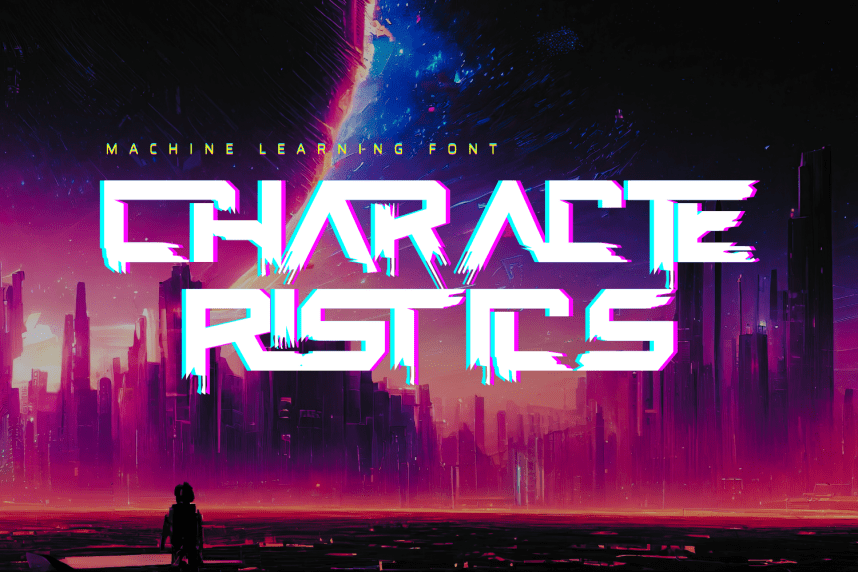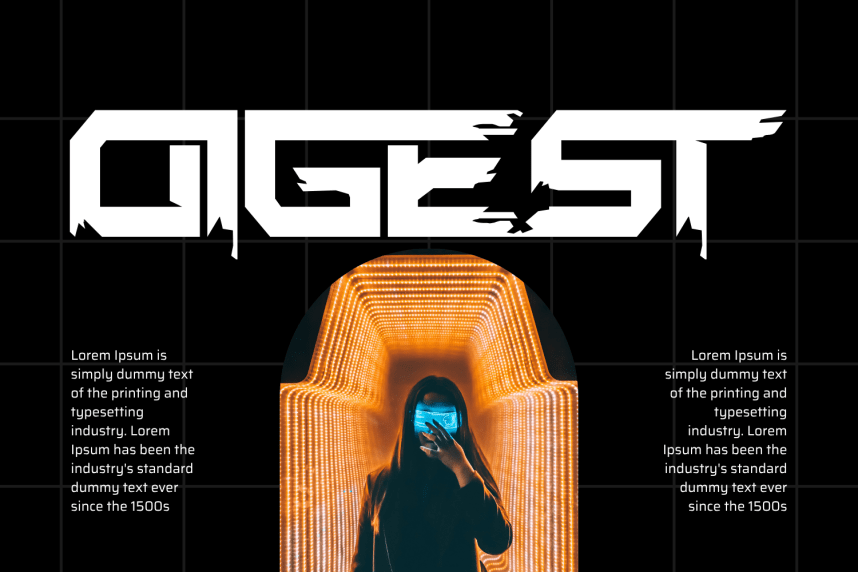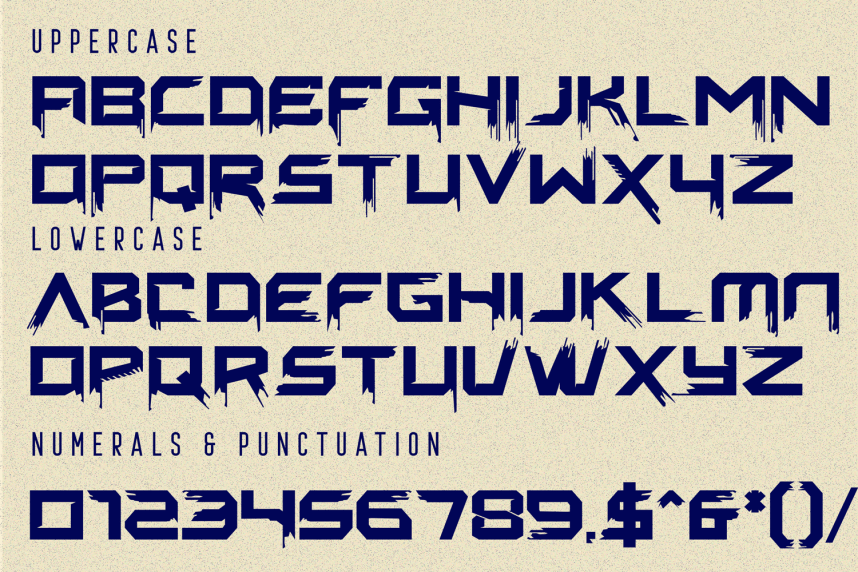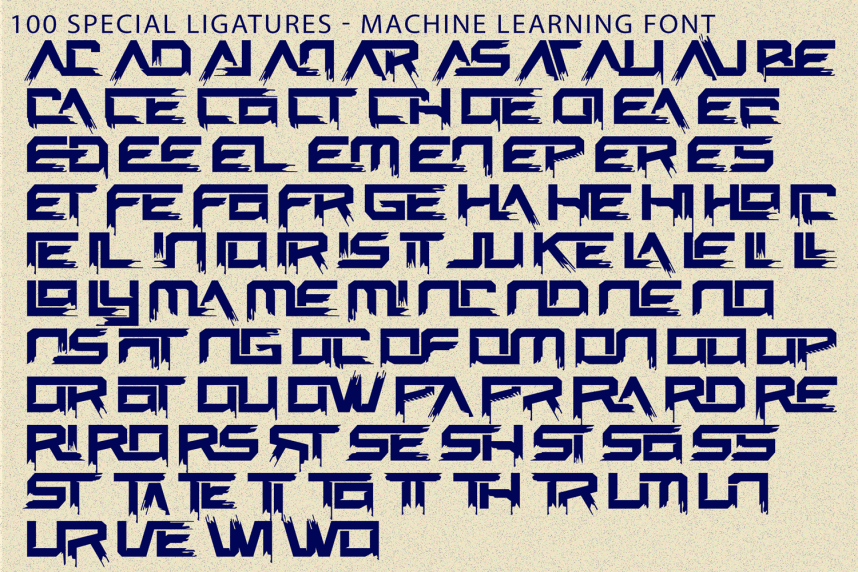
Machine Learning – Display Font
Machine Learning – Display Font is a bold distorted display sans-serif font that brings raw energy and chaotic character into modern typography. Built on a strong geometric structure, this typeface features aggressively torn edges and glitch-inspired details that create a striking and rebellious visual impact. Designed for high-visibility projects, Machine Learning delivers a powerful presence in headlines, posters, gaming graphics, and edgy branding. The rough textures and dynamic cuts give each letter a sense of movement and intensity, making it perfect for horror themes, action designs, and urban-style visuals.
• Uppercase & Lowercase Letters
• Around 100 Special Ligatures & Alternates
• Numerals & Punctuation
• Accented Characters for multilingual support
🔤About 100 ligatures combined with Stylistic Alternates Font:
ac ad al an ar as at au av be ca ce ch co ct de di ea ec ed ee el em en ep er es et fe fo fr ge ha he hi ho ie ic il in io ir is it ju ke la le li ll lo ly ma me mi nc nd ne ng no nt ns oc of om on oo op or ot ou ow pa pr ra rd re ri ro rs rt se sh si so ss st ta te th ti to tr tt um un ur ve wi wo